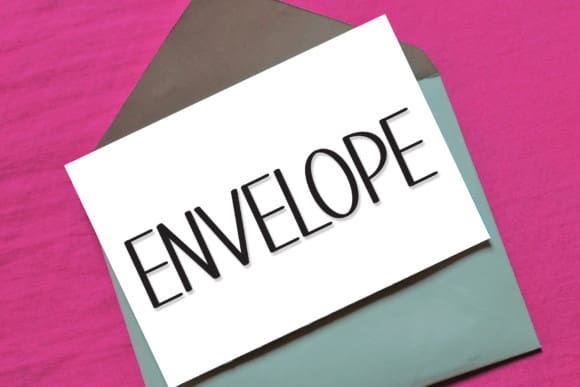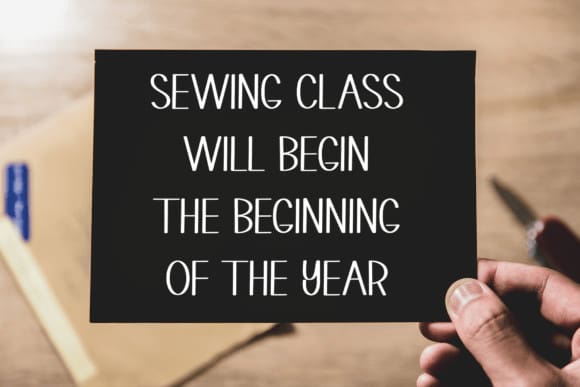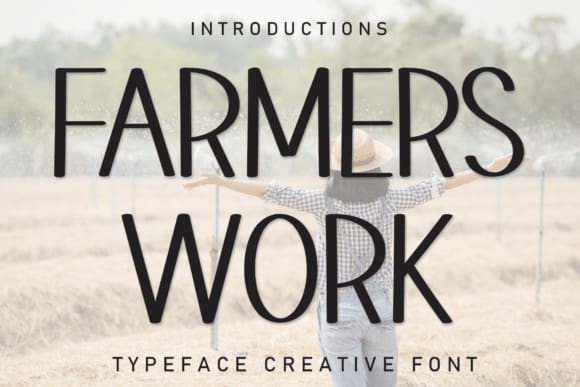
Farmers Work Font
Farmers Work Font is a flowing handwritten font, described by an elegant touch, perfect for your favorite projects. Fall in love with its incredibly distinct and timeless style and use it to create spectacular designs!